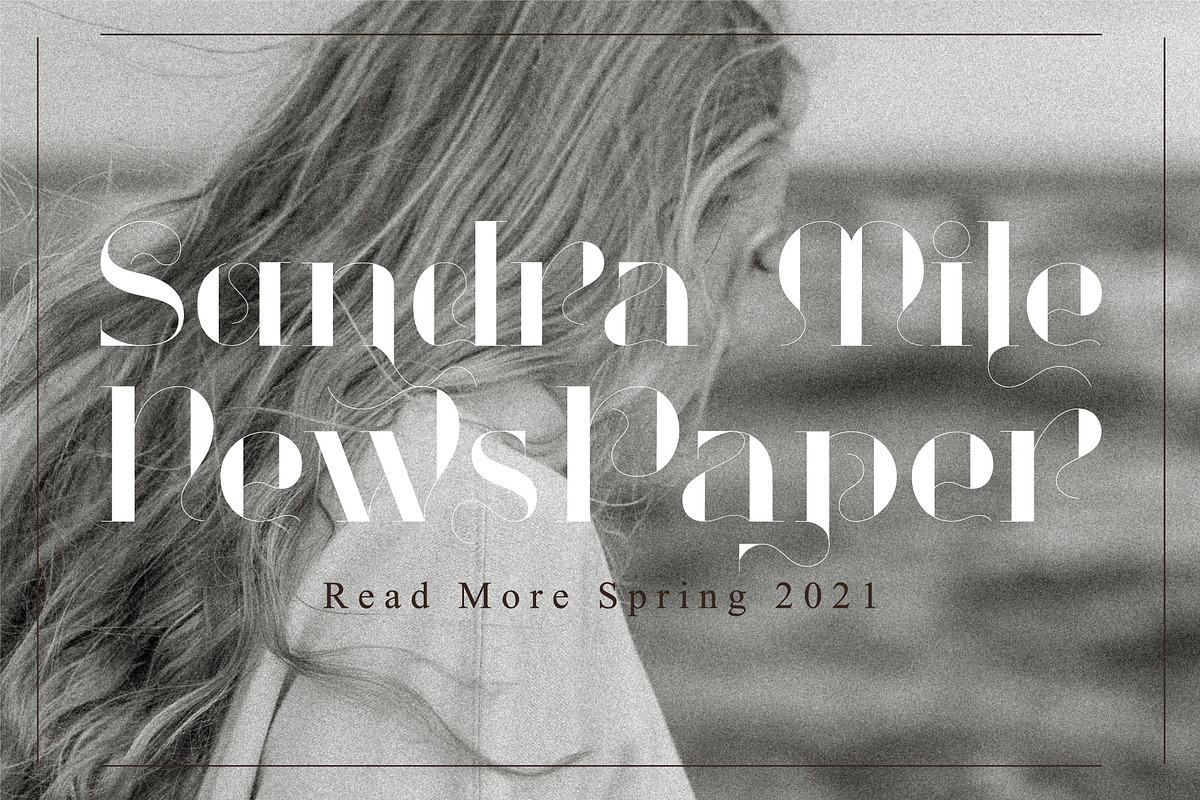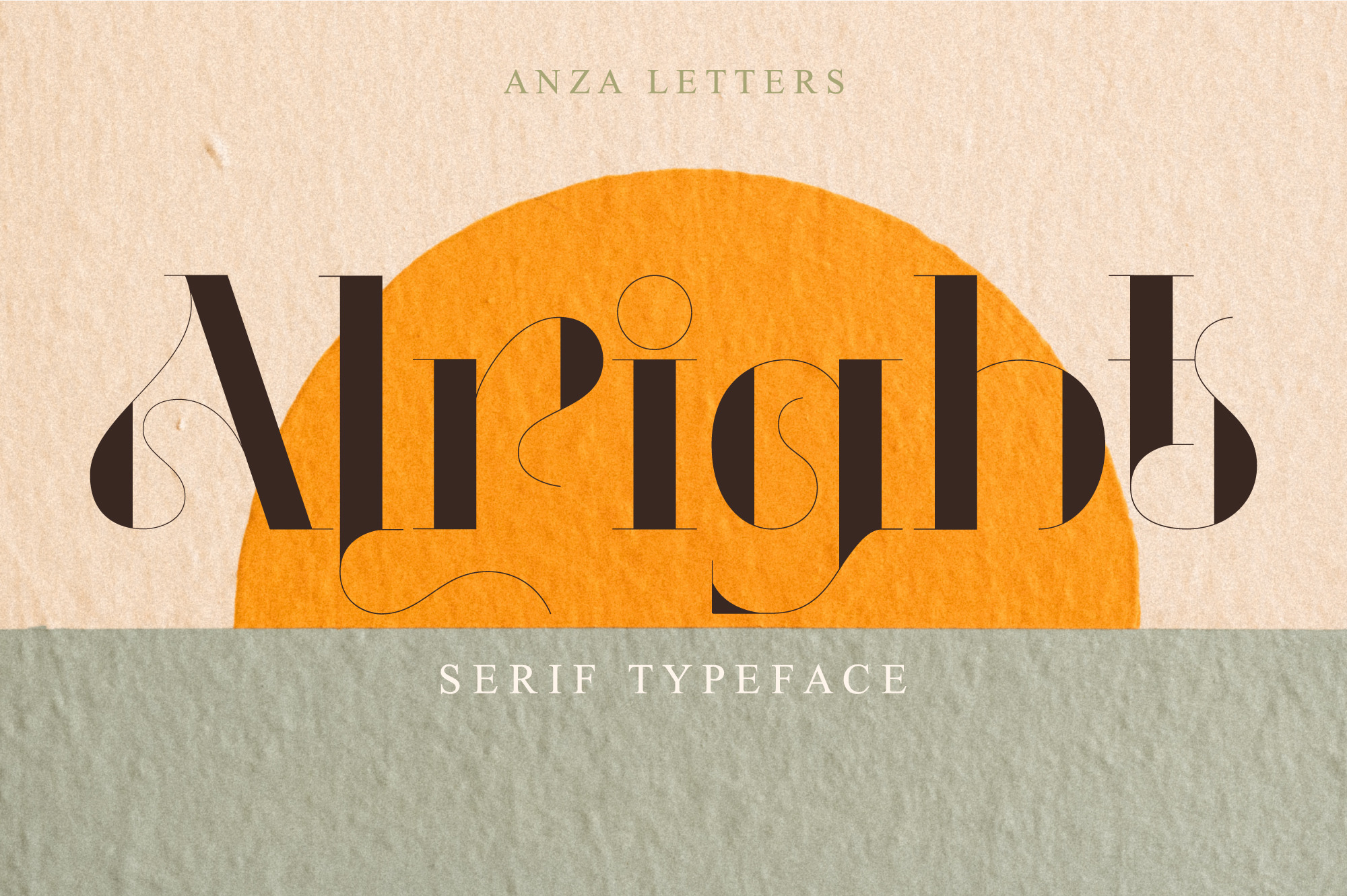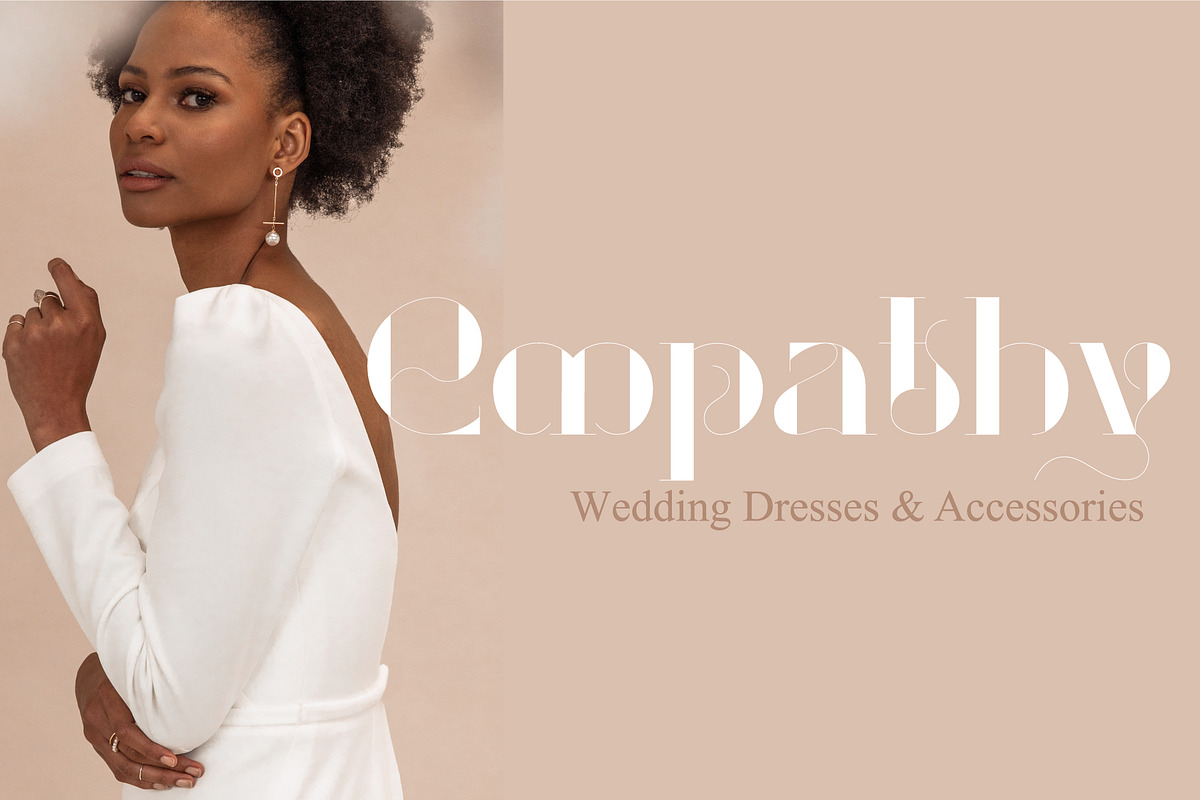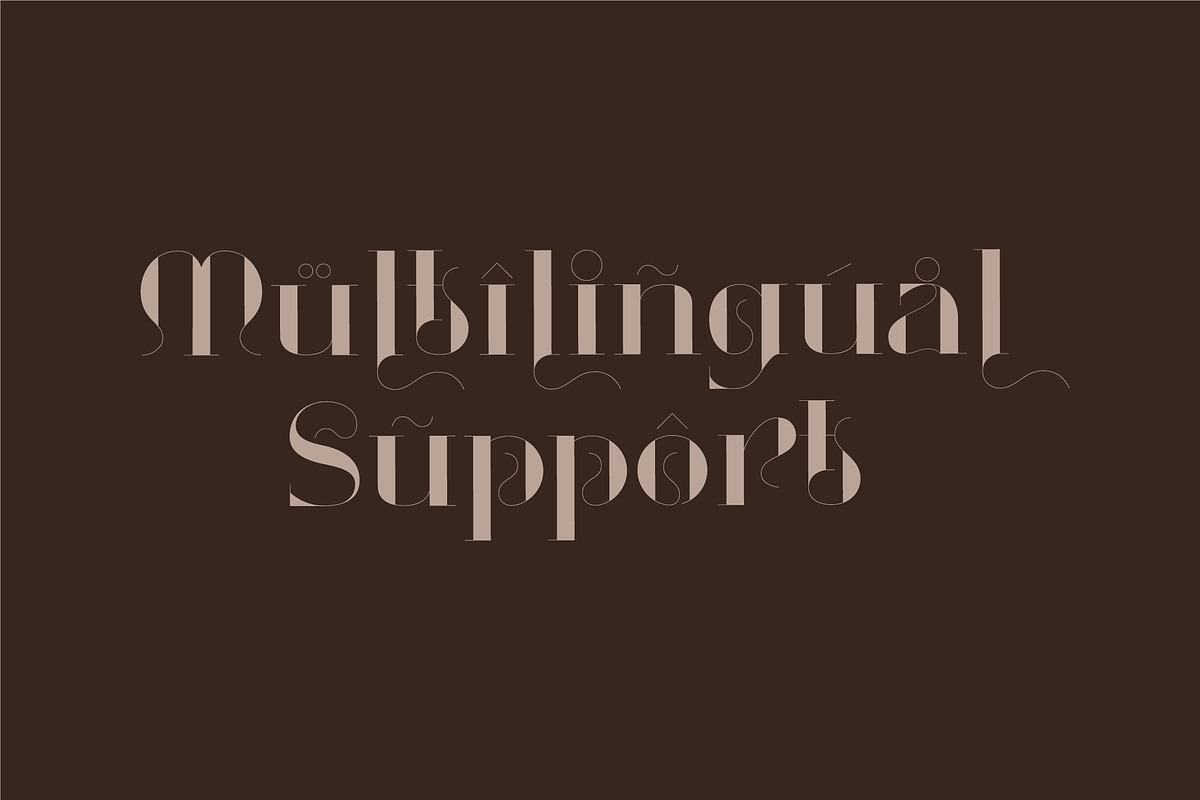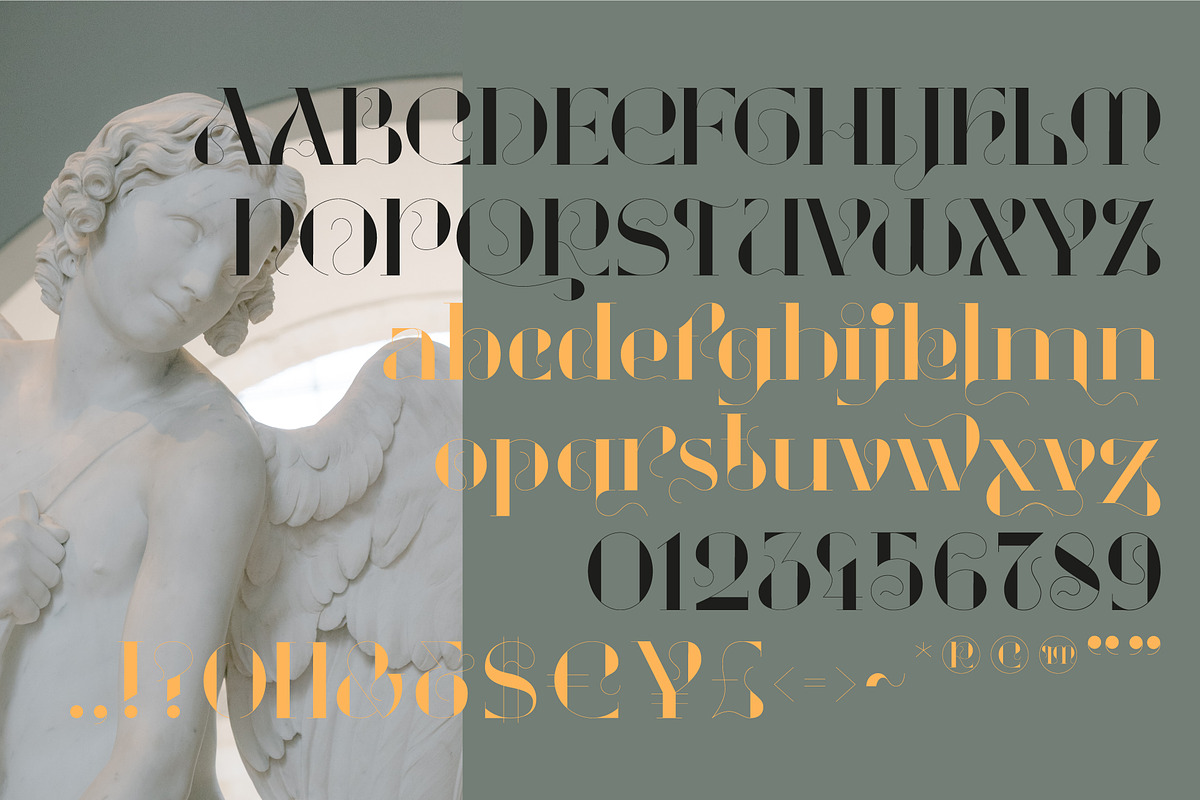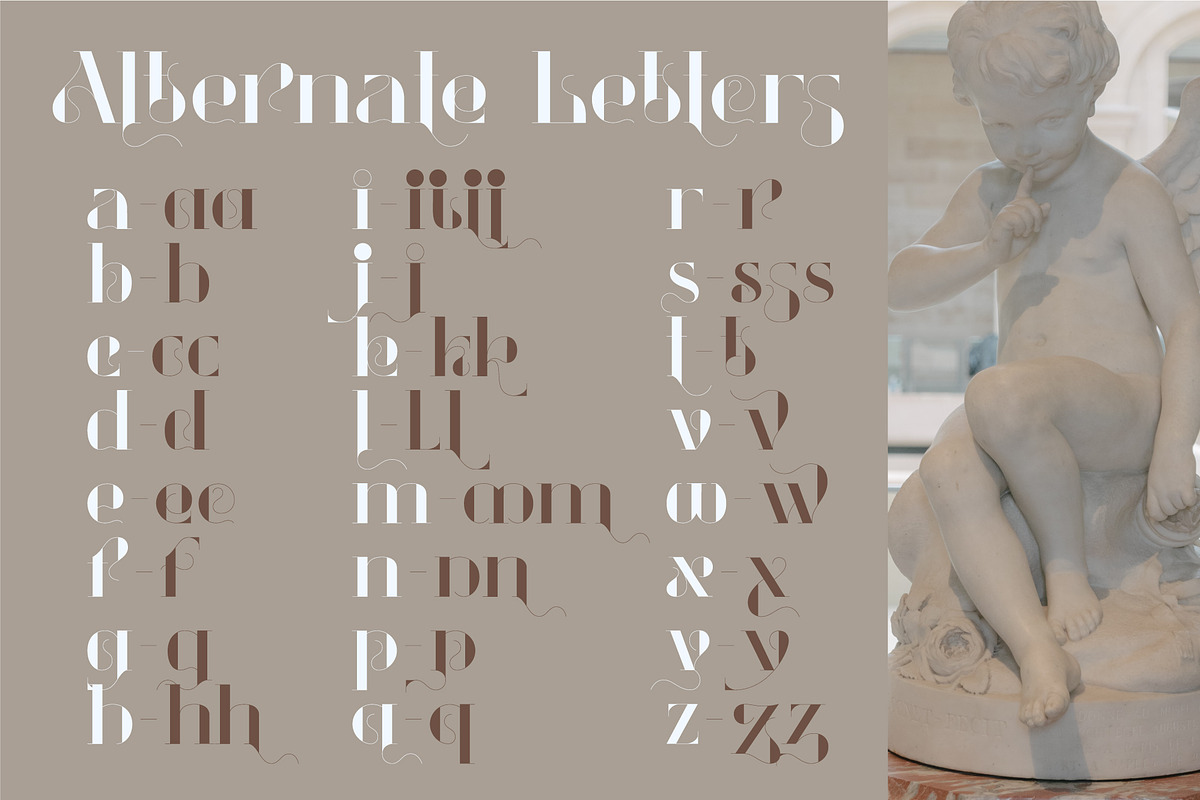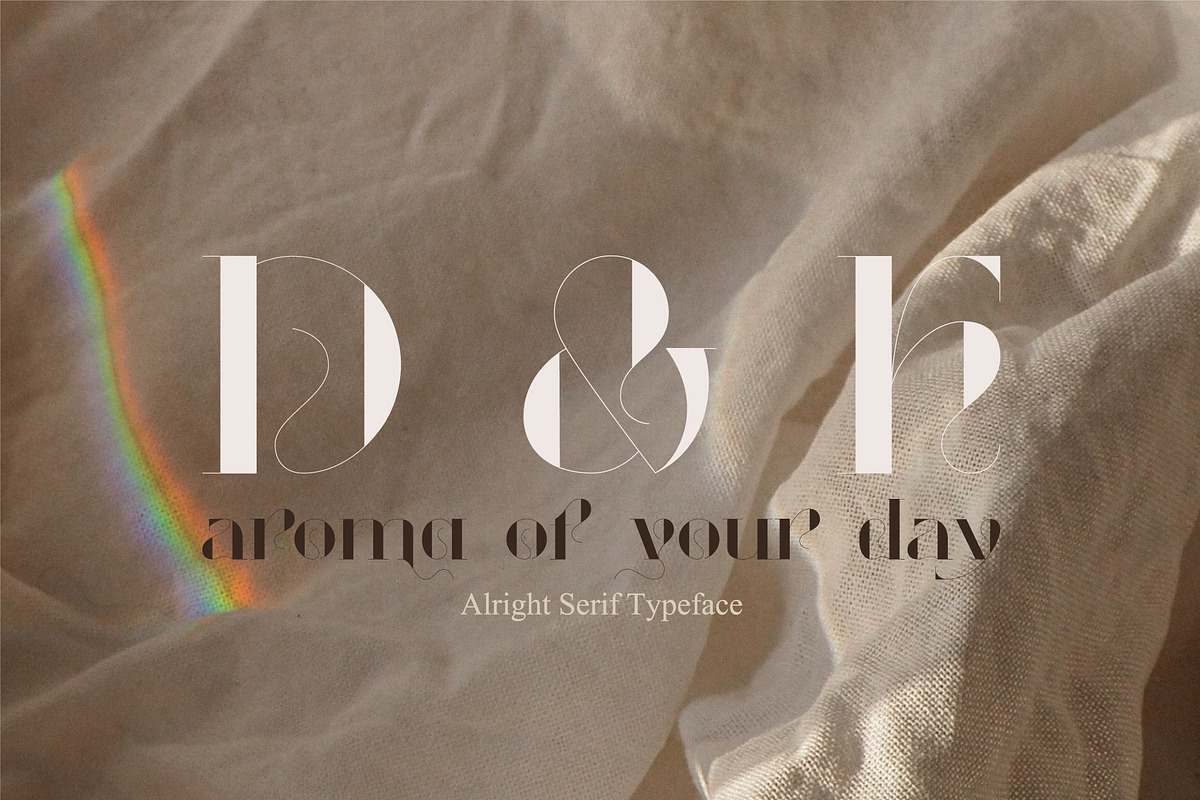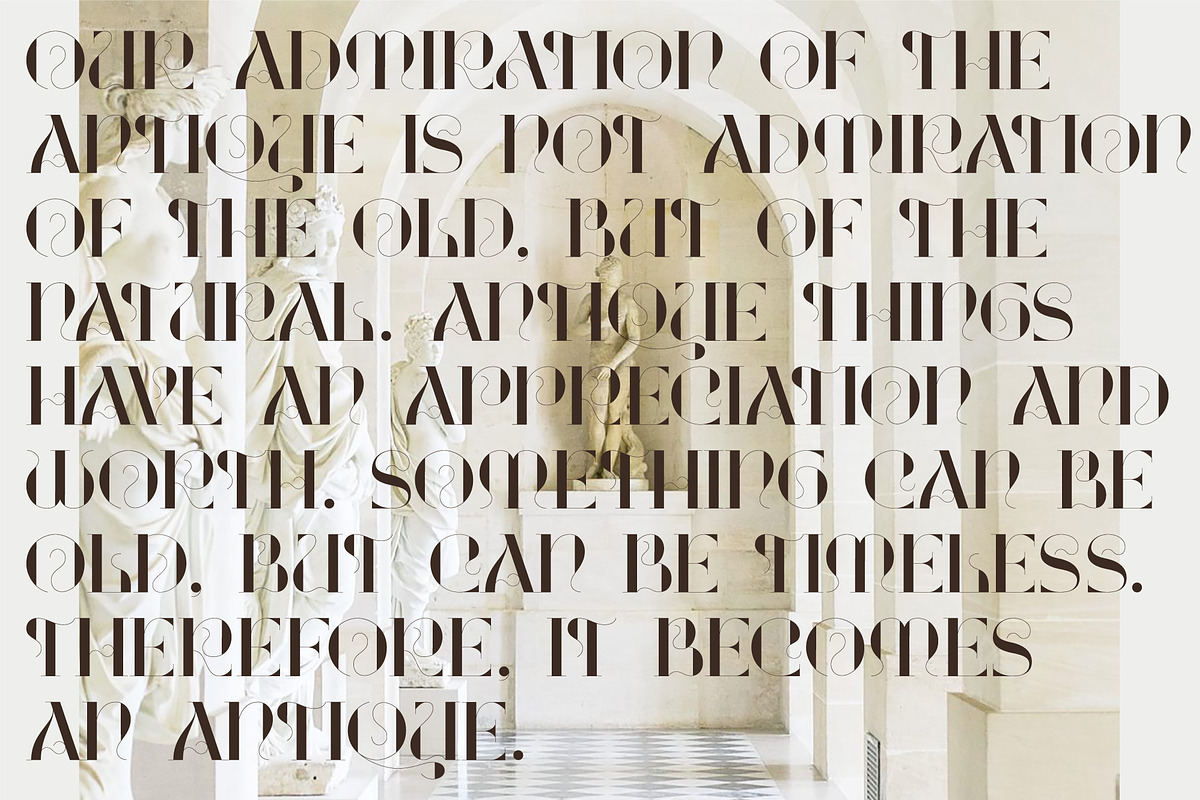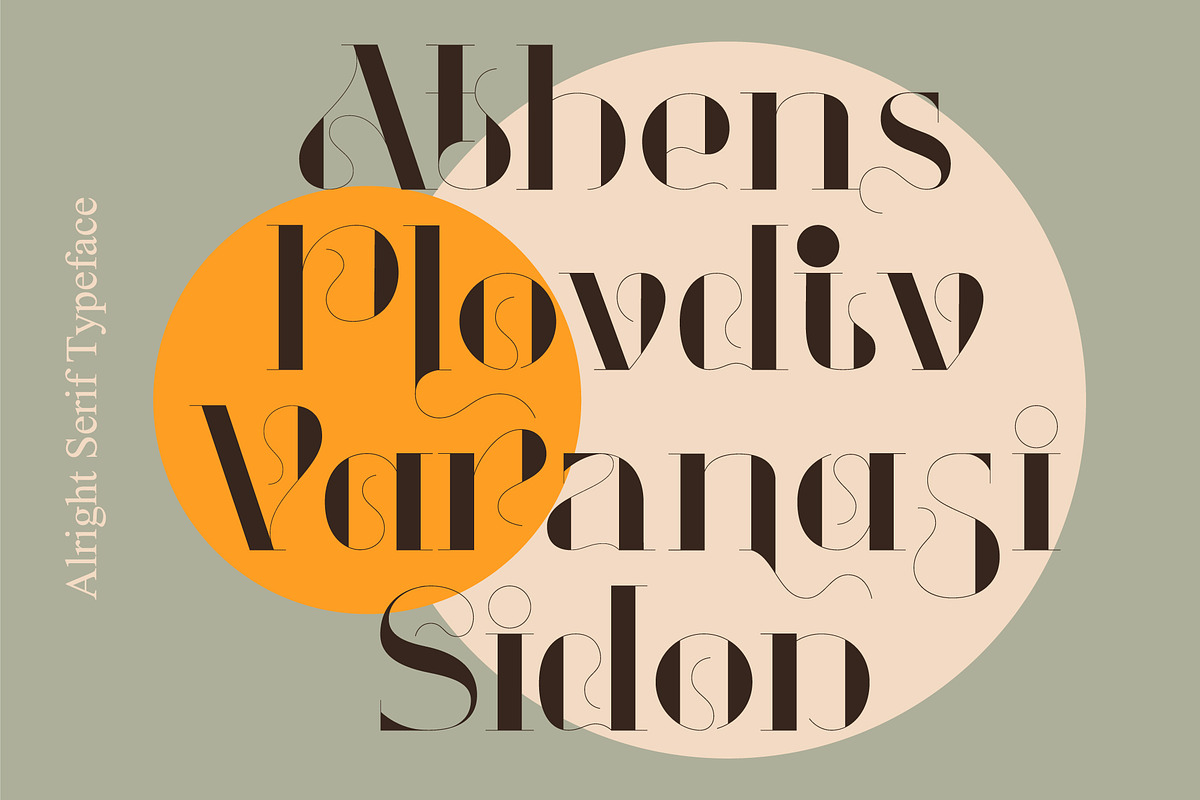
Alright - Elegant Serif Typeface
Discover my new stylish and elegant serif typeface Alright with lots of alternate letters! Just create stunning logos, apparel design, wedding cards, quotes, display text, invitations and more.
Alright contains uppercase and lowercase characters, punctuation & numerals, multilingual support (French, German, Italian, Norwegian, Portuguese, Spanish, Swedish, Swiss German).
To make your typography truly unique, Alright font includes beautiful 'Stylistic Alternates' (alternative letter designs) to provide you with more customisation options.